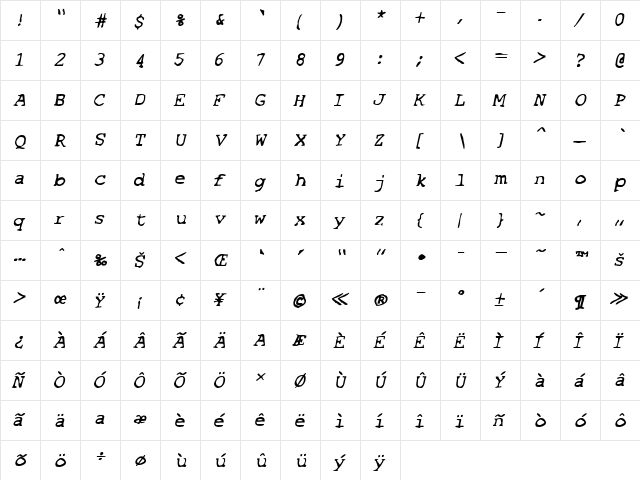
SF Espionage Medium Oblique
Design Context for SF Espionage Medium Typeface
SF Espionage Medium takes a measured approach to typography — its balanced proportions and neutral character make it a reliable workhorse for both digital and print work. The dynamic lean of this cut emphasises speed and emphasis in any layout.
Pro Tip: Try SF Espionage Medium for annotation and caption copy alongside an upright companion — the contrast in angle creates a dynamic but ordered typographic system.